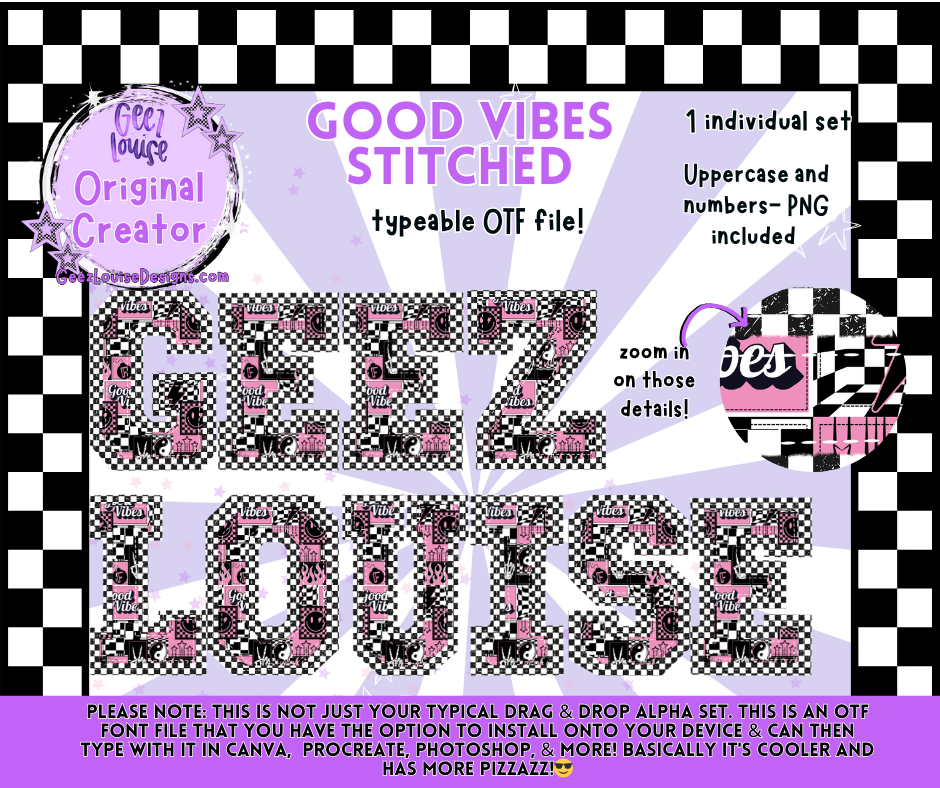
Good Vibes Stitched – Typeable OTF Font with PNGs
Whimsical. Wrecked. Ready to type.
GOOD VIBES STITCHED isn’t just a font—it’s a stitched-up celebration of maximalist joy and checkerboard rebellion. With bold textures in black, white, pink, and purple, this typeable OTF file brings the vibe and the volume to every design ritual.
• 1 individual set in stitched “Good Vibes” style
• Zoom-worthy stitched detail for that handmade-meets-digital aesthetic
💫 Why it slaps: This font is stitched with intention and sprinkled with glittery defiance. Whether you’re designing tees, building community lore, or crafting captions that feel like a hug wrapped in fishnets, GOOD VIBES STITCHED gives you the texture, tone, and typeability to make your weird feel wonderful.